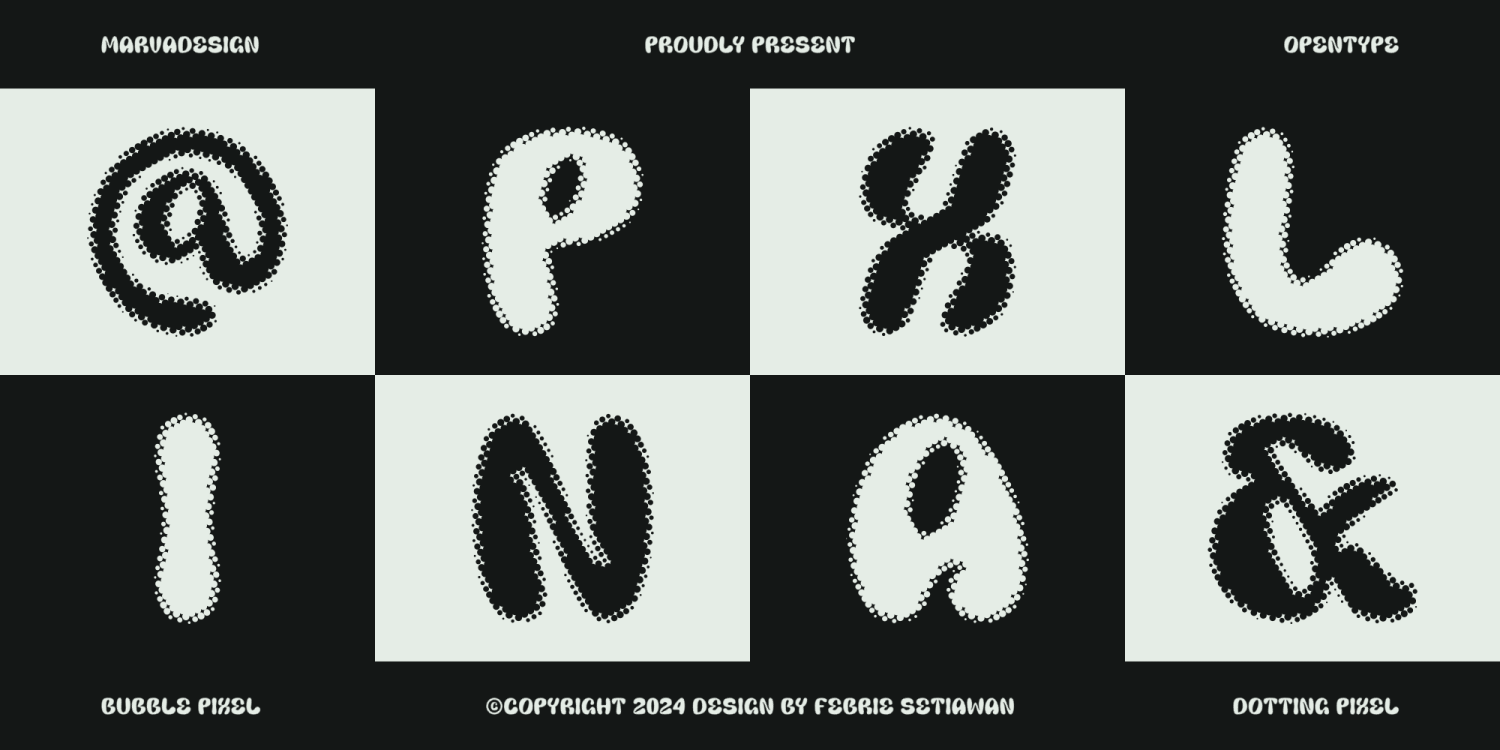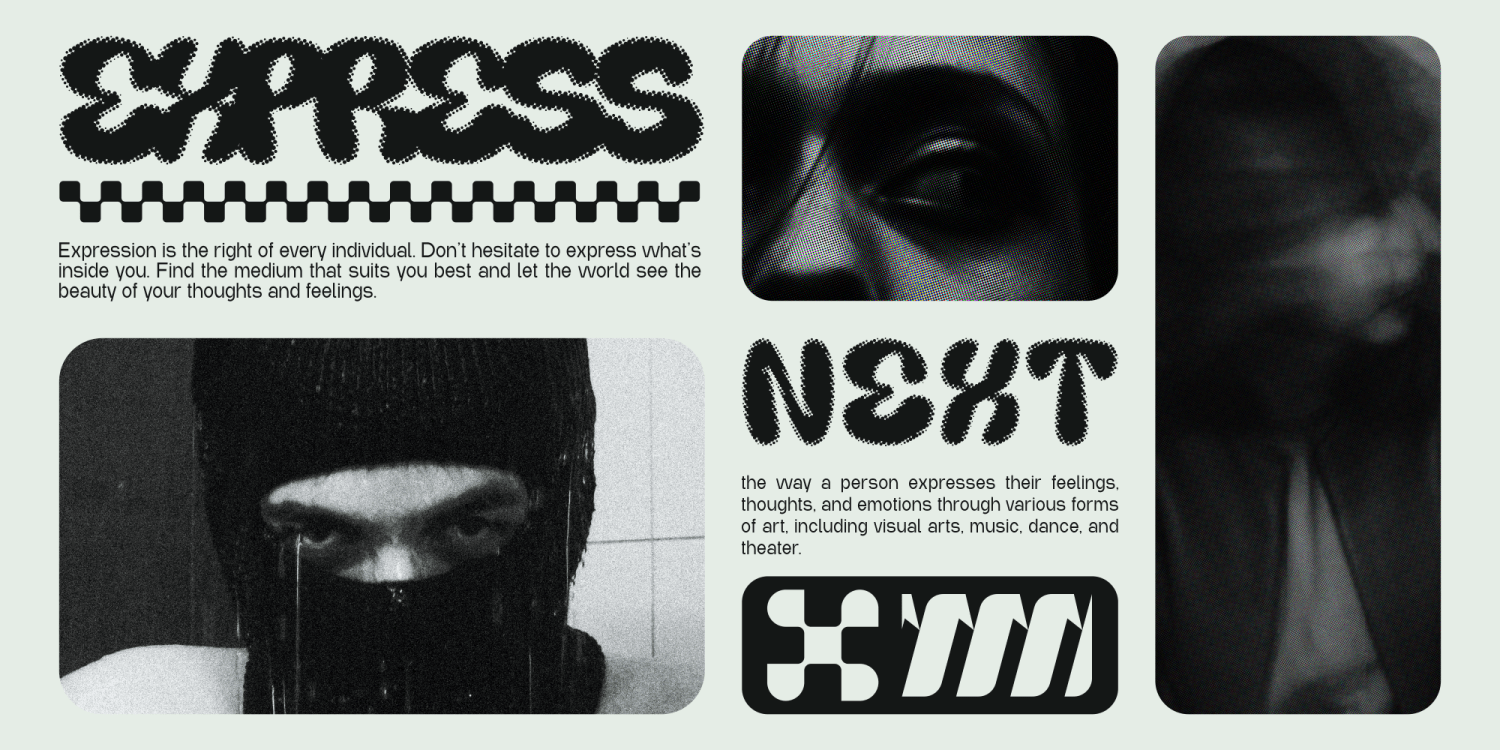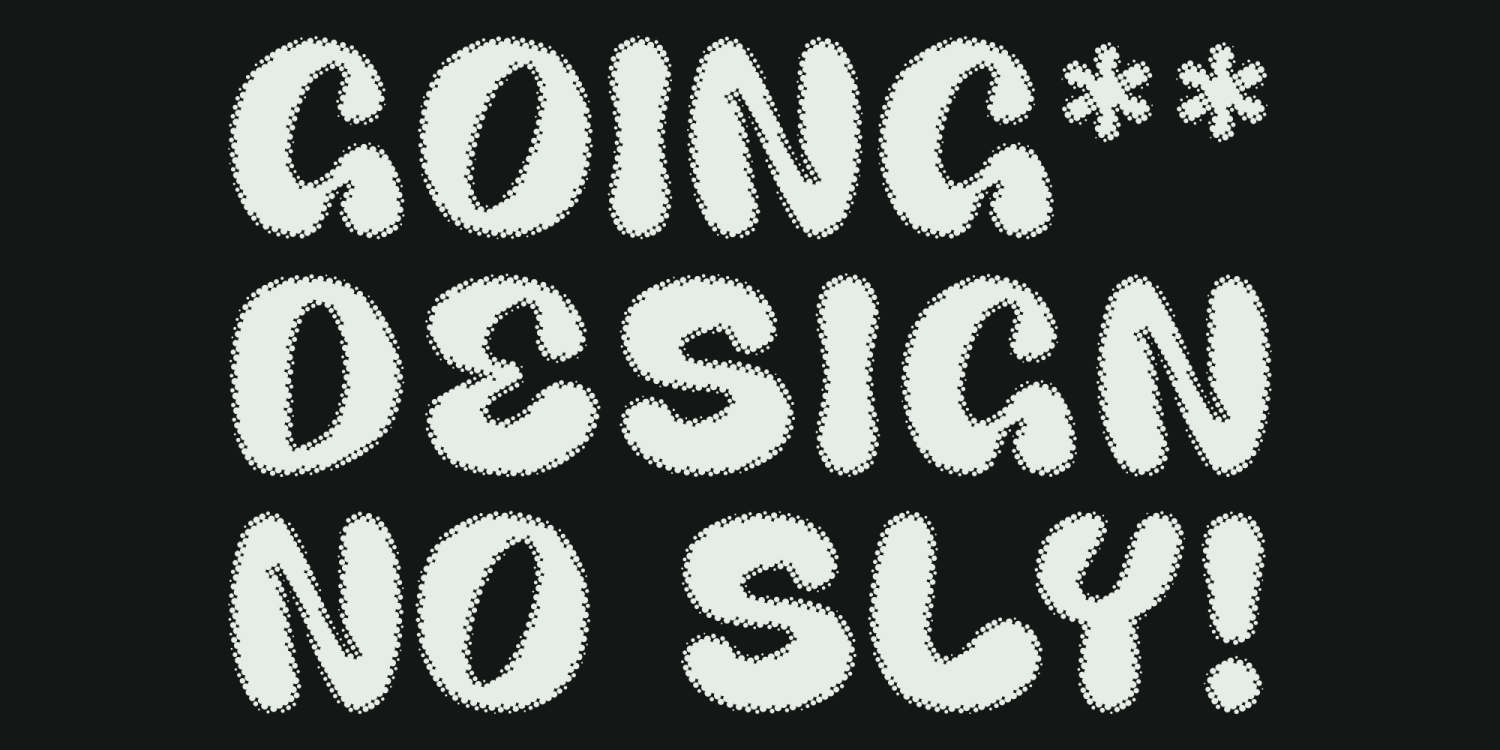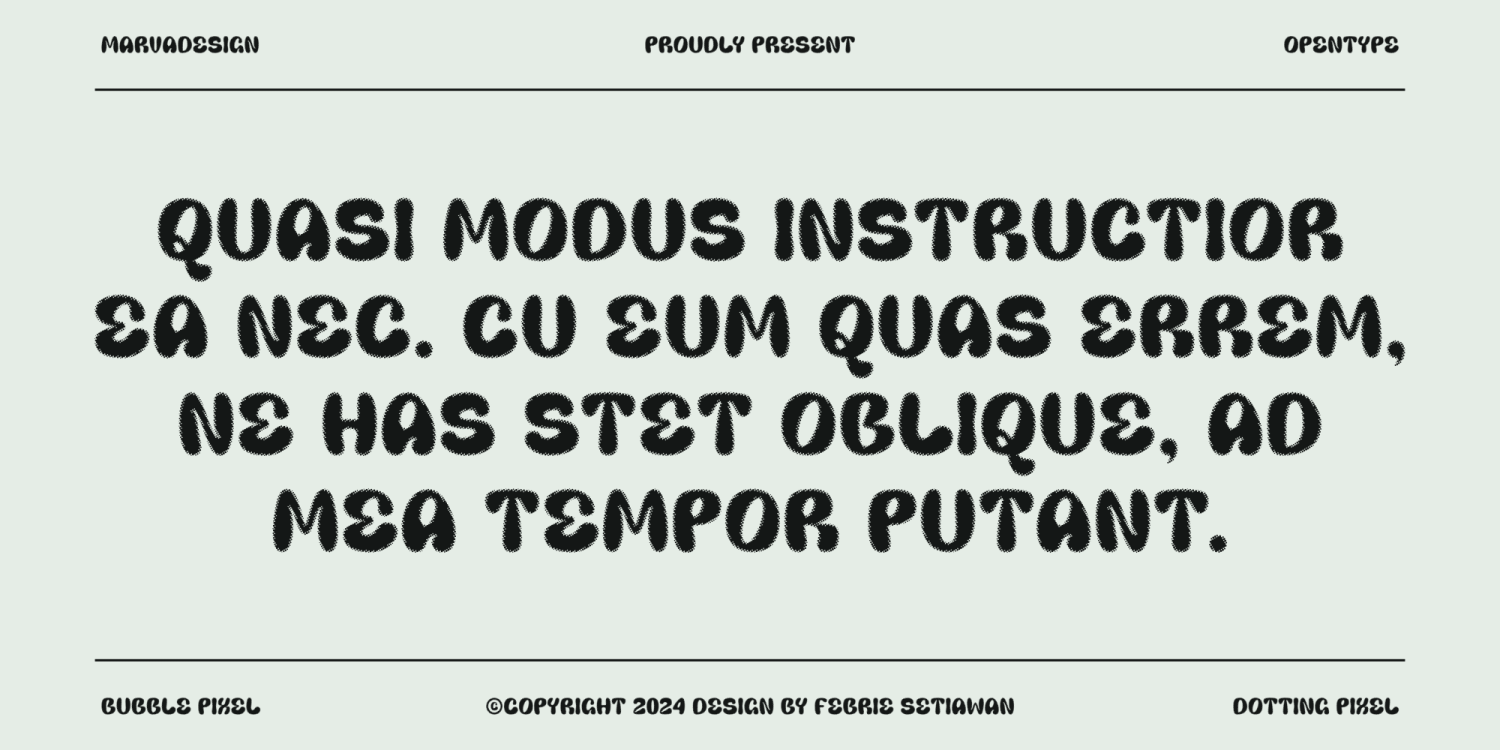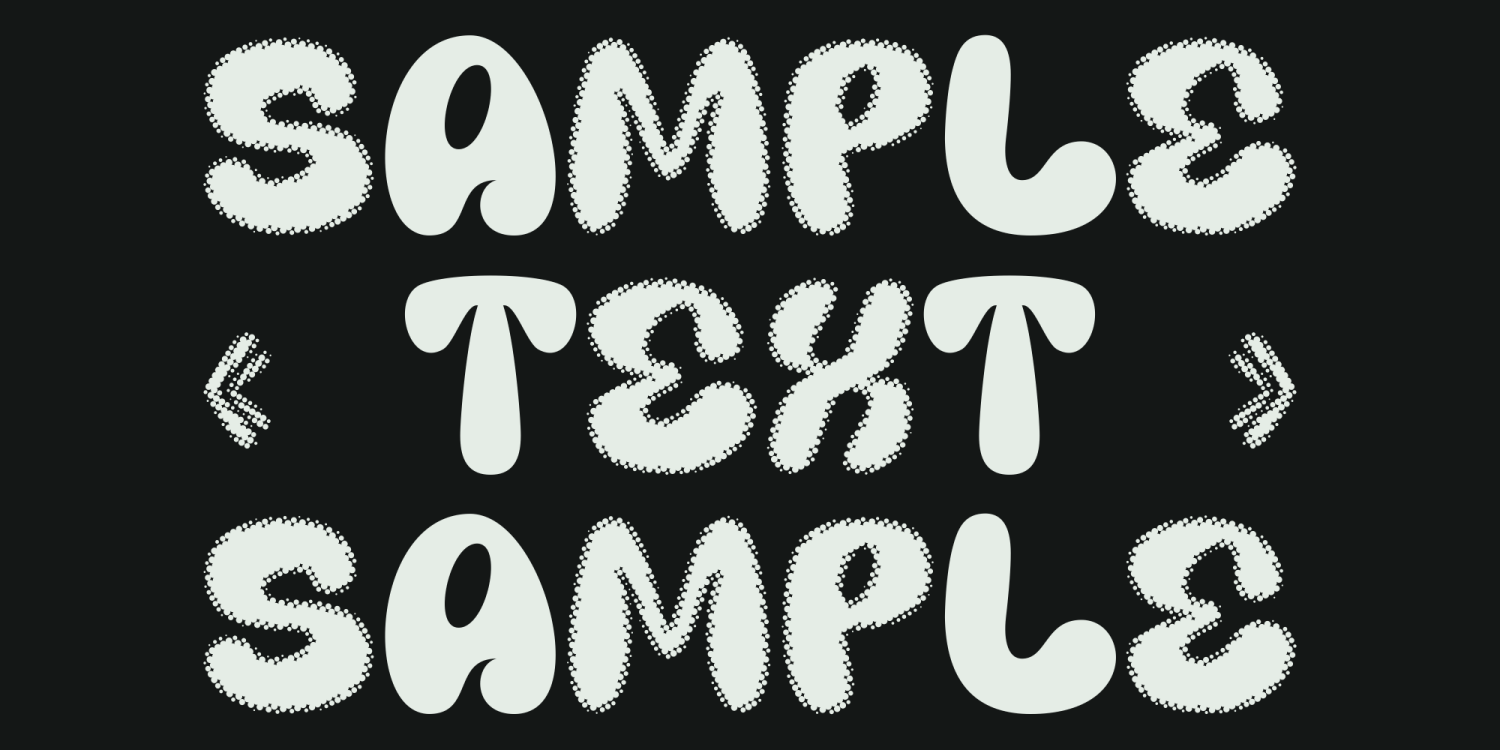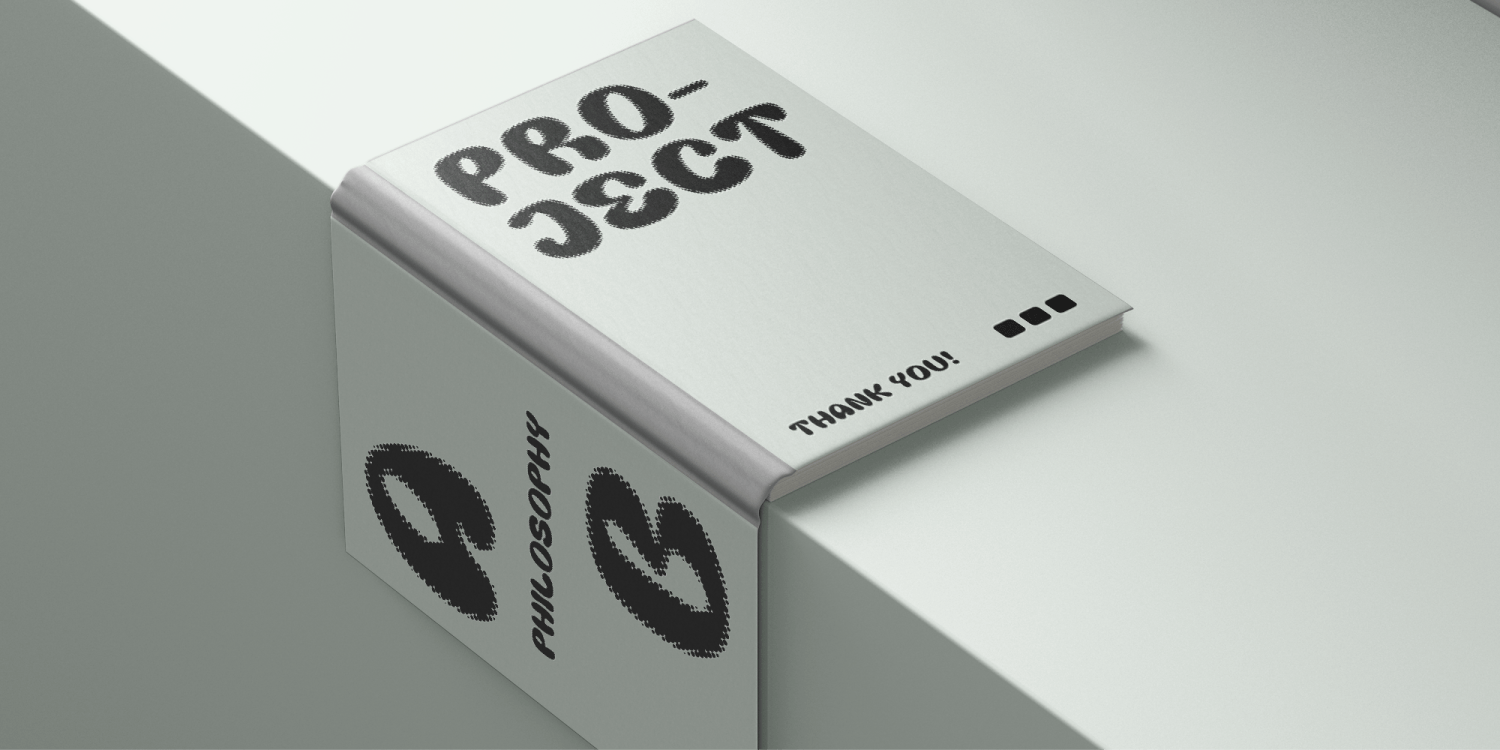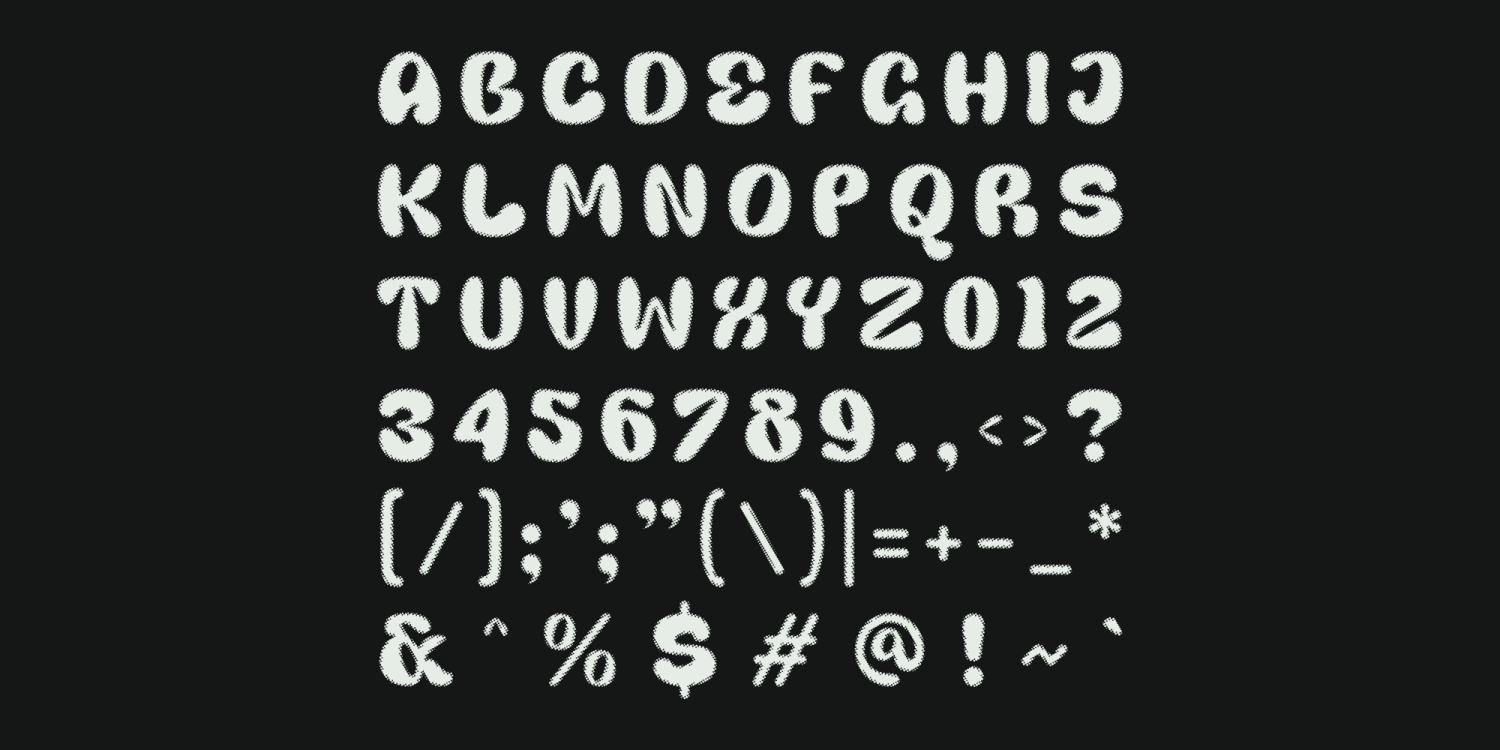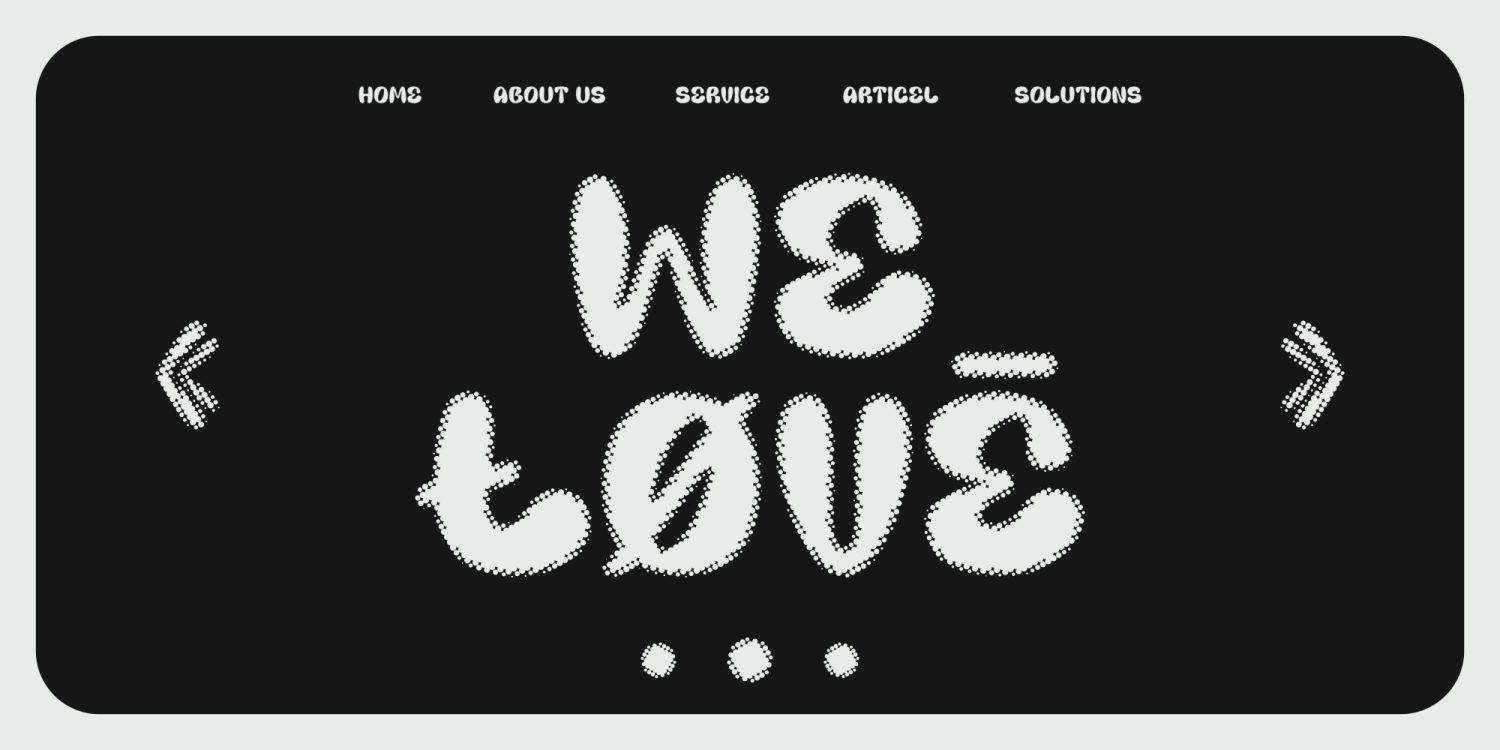
Marva Bubblo Pixel
Introducing Marva Bubblo Pixel is a variant of the Marva Bubblo Groovy font family that combines a decorative style with a pixel art aesthetic. This font is designed to provide a unique and attractive look that combines decorative bubble elements with the clarity and simplicity of a pixel design.